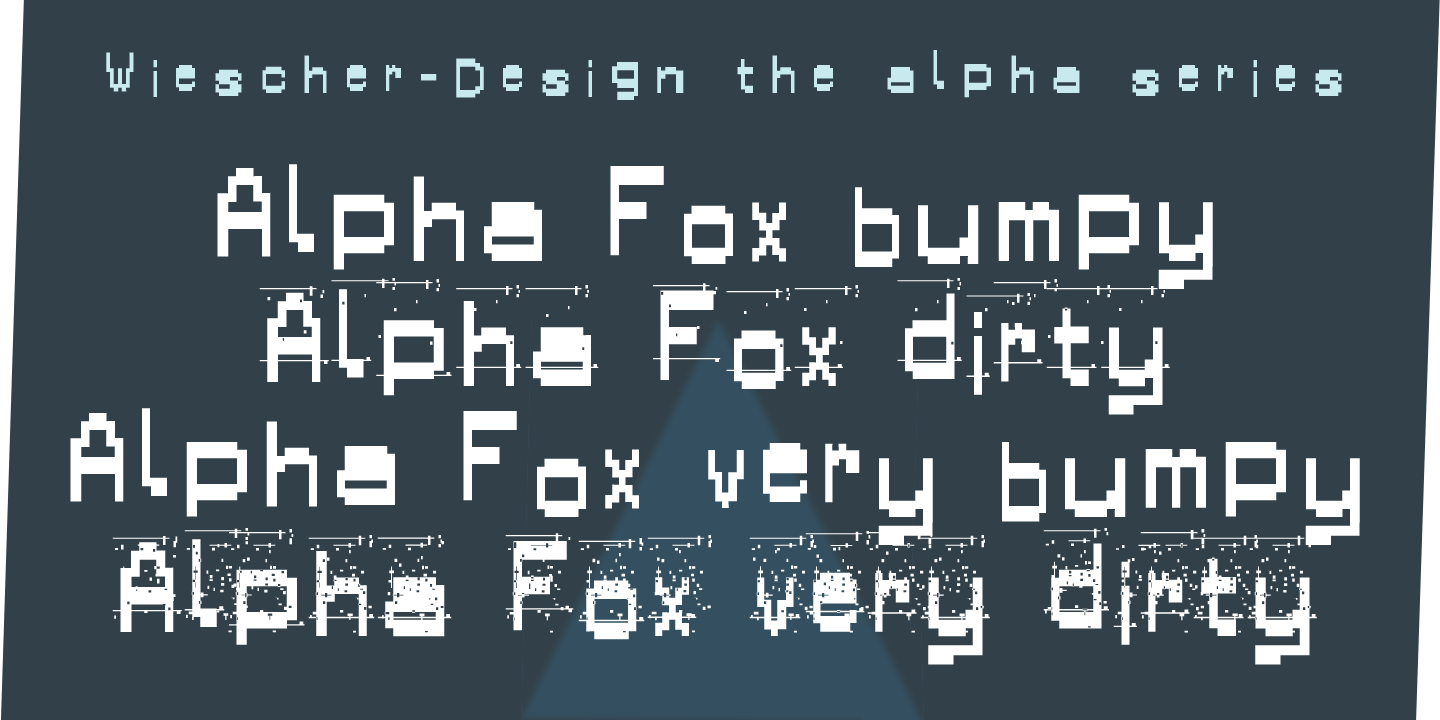
Alpha Fox
Font Family by Wiescher Design
Alpha Fox is another one of my experimental Alpha-series designs. I closely looked at a gas station receipt and was surprised to see those distorted pixelated letters that jumped up and down as they liked. I immediately thought I'll give it a try.
This is what came of it: A set of four typefaces with different jumps as well as different amounts of misprinted pixels. You can mix the four as you like. To make sure that you will really mix the fonts, I only sell the packet of four, but for a very good price.